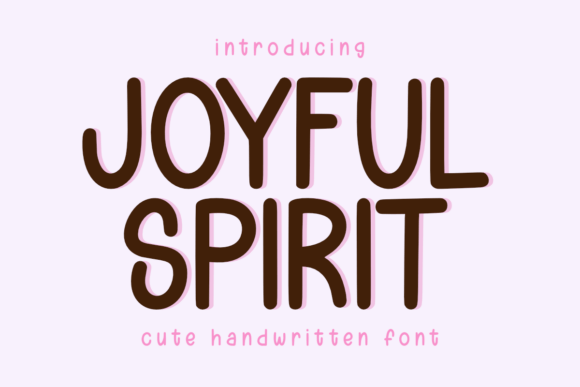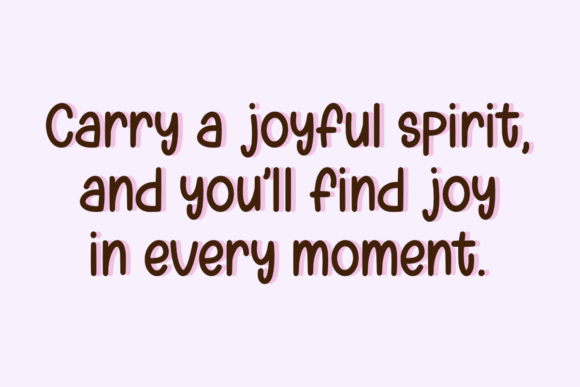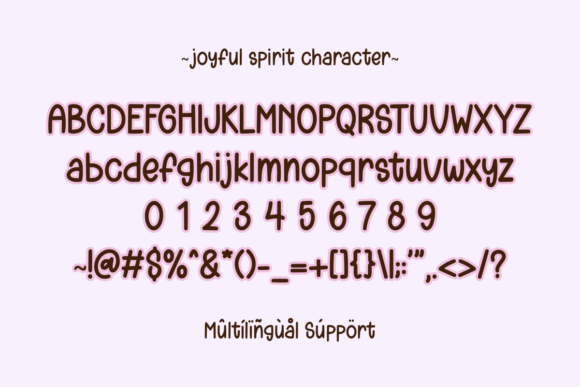
Joyful Spirit Font: Cute Handwritten Typeface for DIY & Cricut Projects
About the Joyful Spirit Font
Step up your design game with Joyful Spirit Font, a font that exudes confidence and style. Joyful Spirit is a cute and playful handwritten font, perfect for planners, stickers, cards, quotes, and craft projects. Ideal for creative moms who love DIY, journaling, and Cricut crafts!
Its playful, handwritten style shines in projects requiring a touch of whimsy and personality. Think greeting cards, social media graphics, branding for children’s products, or packaging for artisan goods. Avoid using Joyful Spirit for large blocks of body text or UI elements; its informal nature compromises readability in such contexts.
Pair it with a clean sans-serif like Open Sans for a balanced contrast, or a slightly more playful serif like Playfair Display for a vintage feel. For a bolder statement, a geometric sans-serif could work surprisingly well. The key is to choose a pairing that grounds the informality of Joyful Spirit while retaining the overall cheerful aesthetic.
Joyful Spirit exudes a friendly, approachable personality, ideal for brands targeting a young, creative demographic. Its lighthearted charm makes it perfect for conveying happiness and warmth.